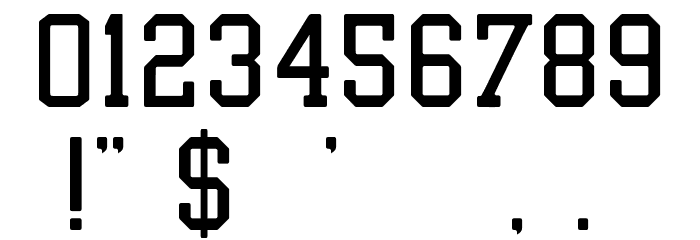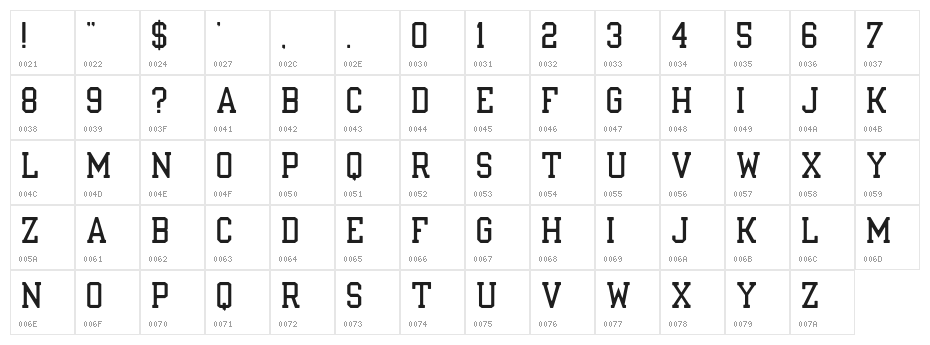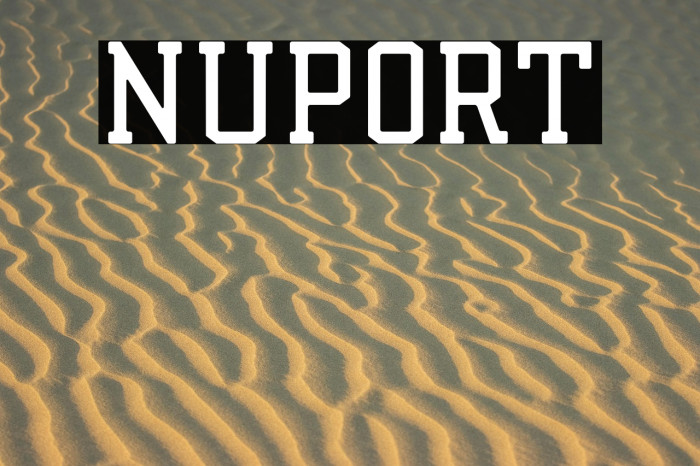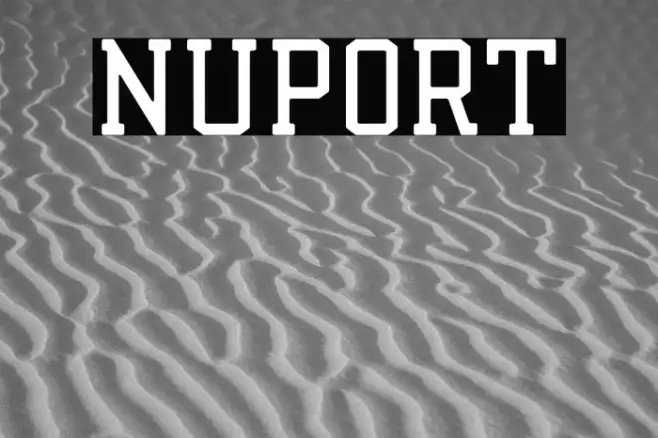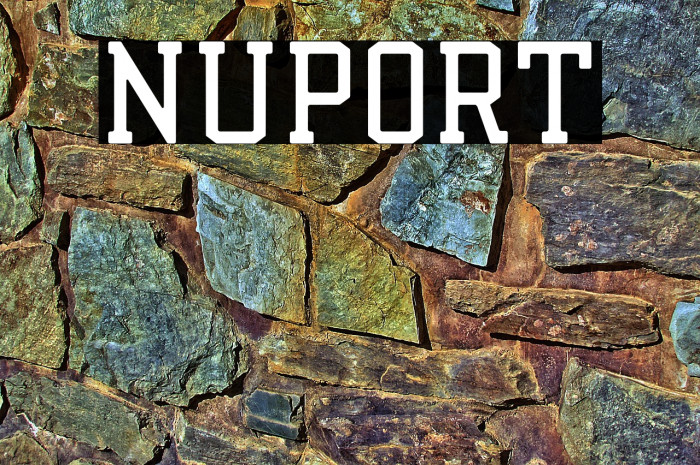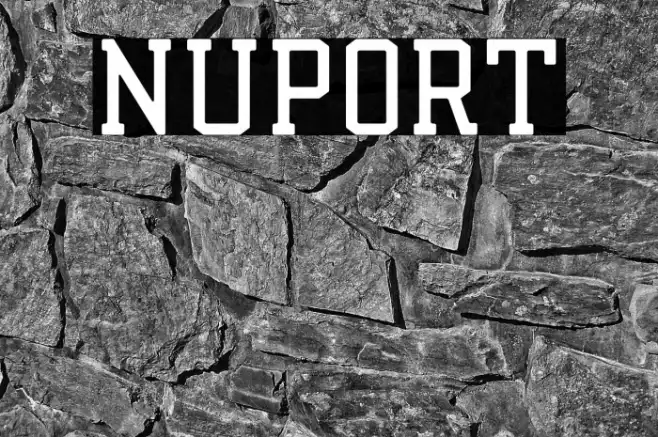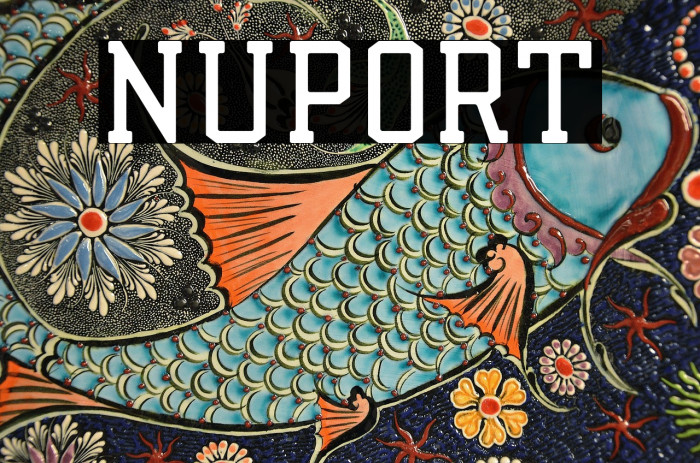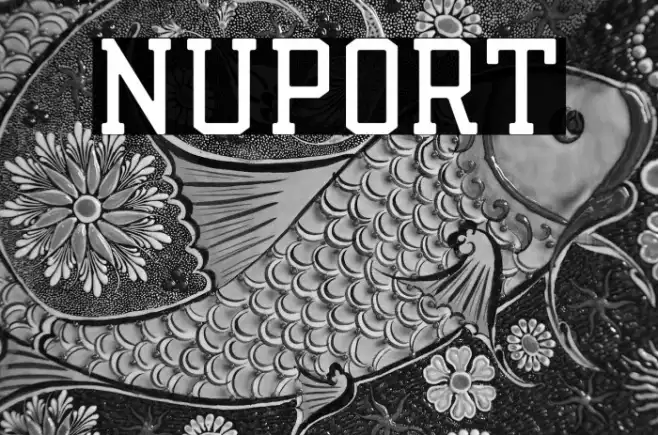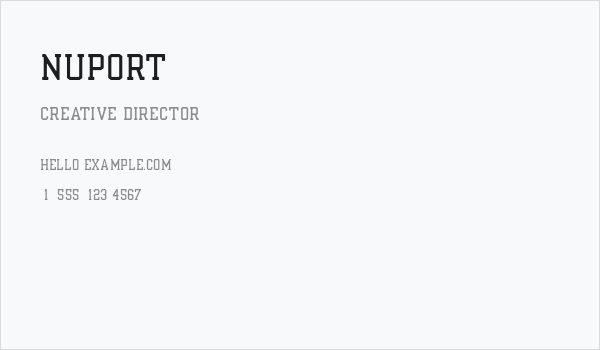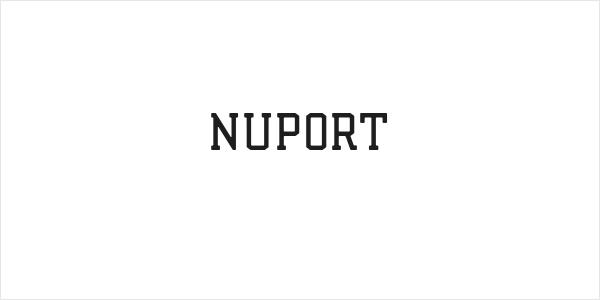
Nuport Font
Nuport Description
This font features a bold, geometric design with a strong presence. The characters are constructed with a uniform stroke width, giving it a monospaced appearance. The uppercase letters are particularly striking, with sharp angles and a mechanical feel. The numerals and special characters maintain this consistent style, ensuring a cohesive look across all text. Its design is reminiscent of industrial or technical themes, making it suitable for projects that require a modern and robust aesthetic.
| Proposed Projects | Ideal for branding, signage, and editorial design that requires a strong, modern look. |